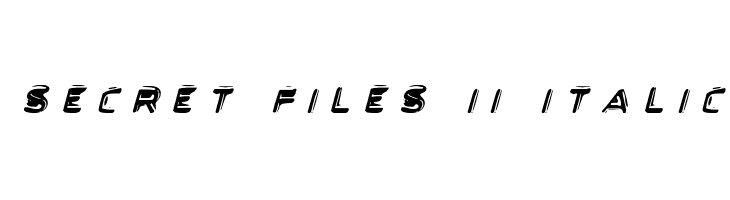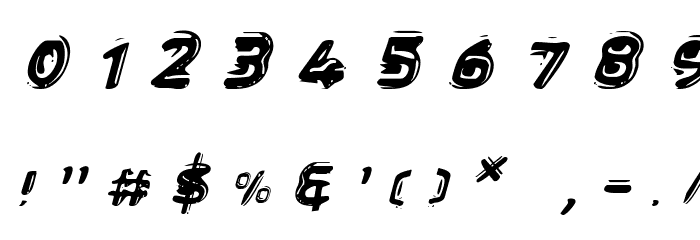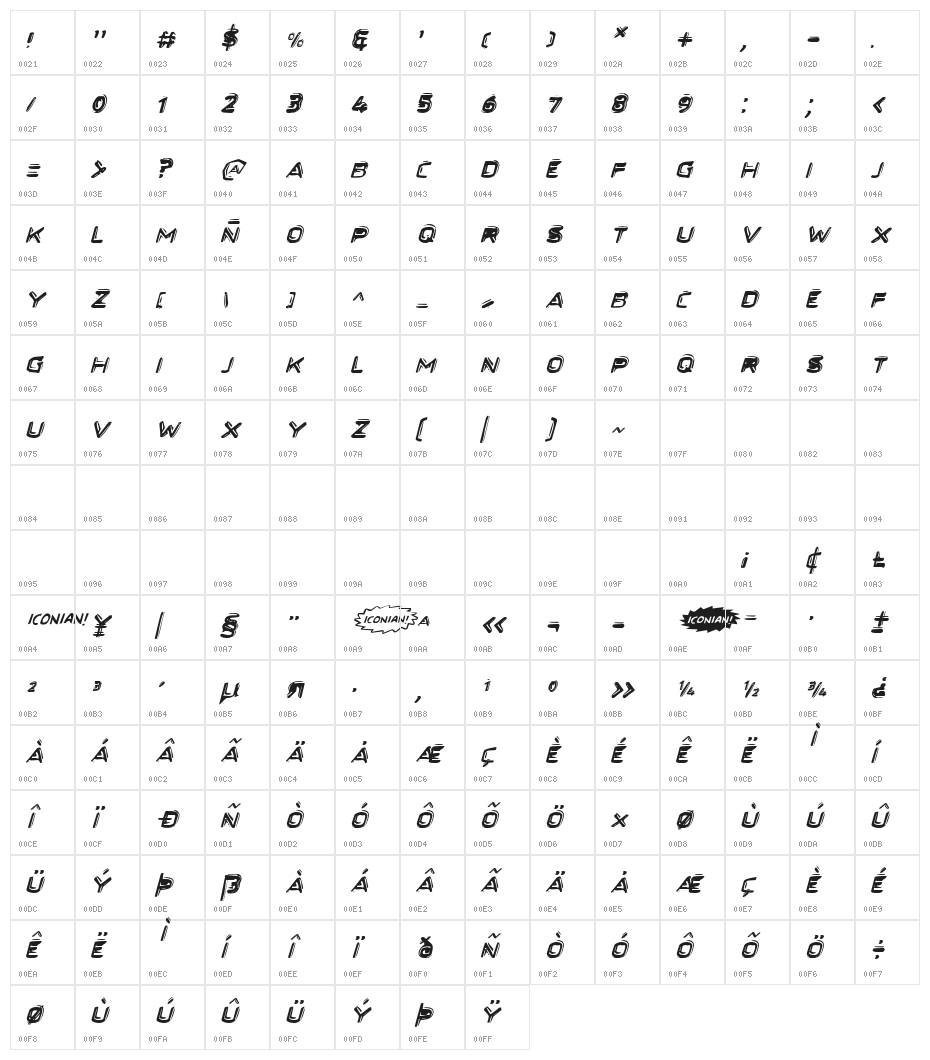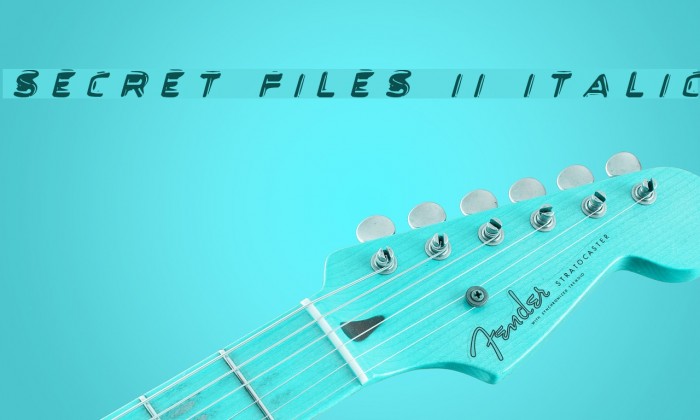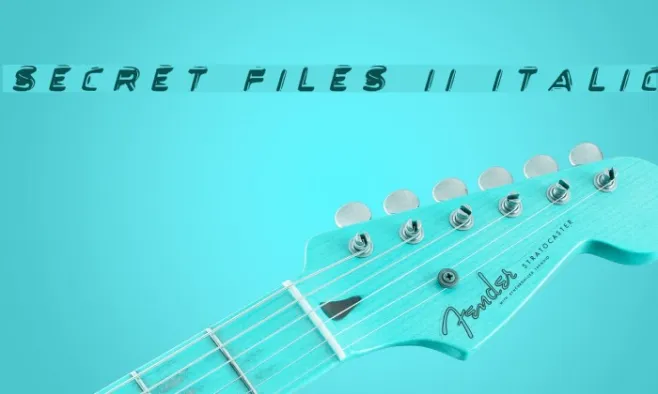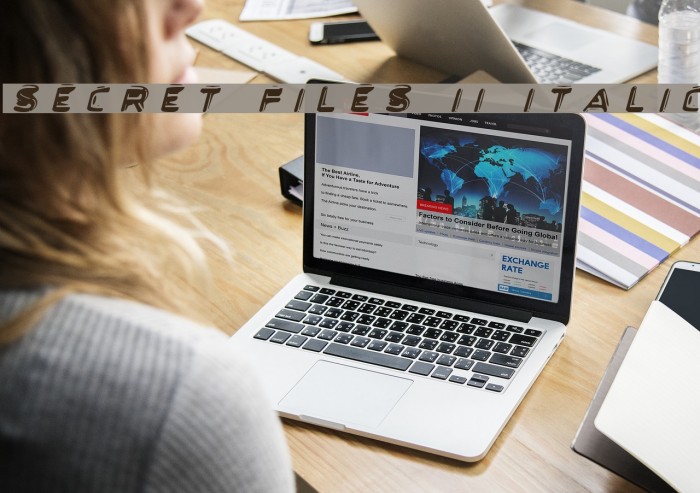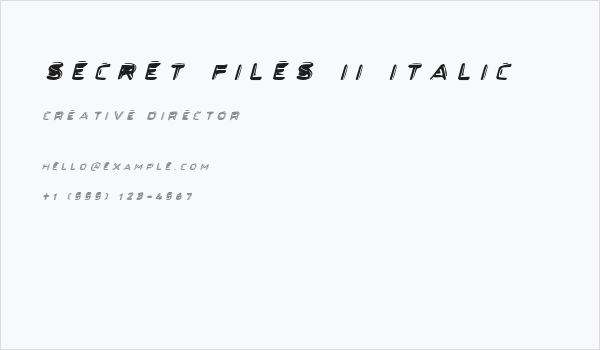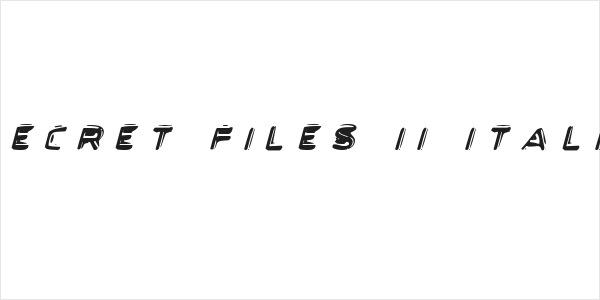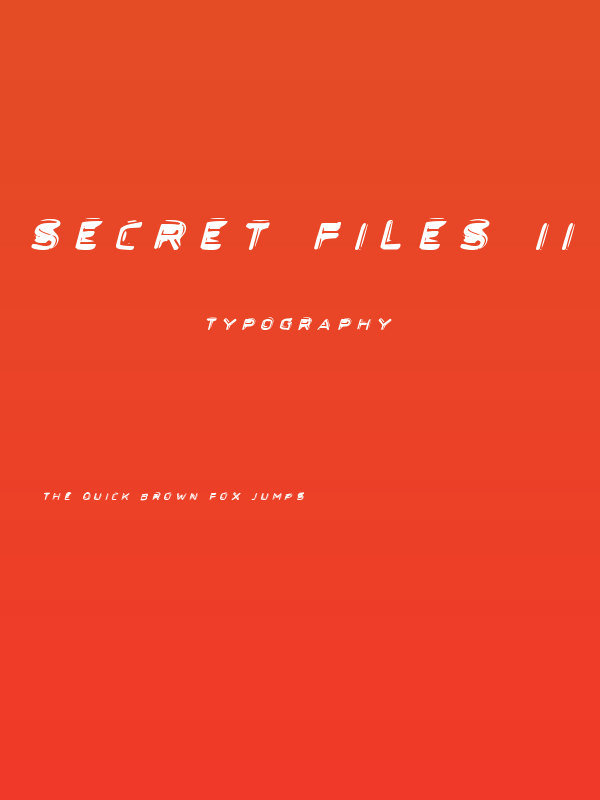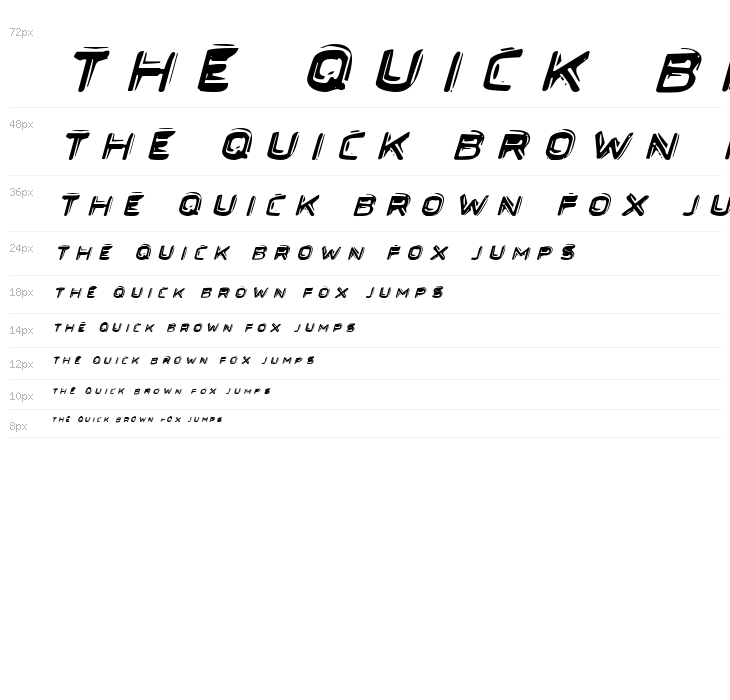
Secret Files II Italic Font
Secret Files II Italic Description
This font features a dynamic and edgy italic style, characterized by its bold and slanted letterforms. The strokes are thick and exhibit a high contrast, with sharp angles and a modern, futuristic appearance. The characters are slightly condensed, adding to the compact and energetic feel. The uppercase and lowercase letters maintain a consistent style, with unique embellishments that give the font a distinctive look. The numerals and special characters follow the same design principles, ensuring uniformity across all glyphs. This font is well-suited for projects that require a bold and impactful visual statement.
| Proposed Projects | Ideal for branding, posters, video game titles, and any project needing a strong, modern aesthetic. |